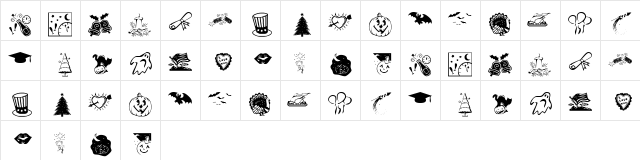
KR Pick A Holiday Regular
Design Context for KR Pick A Holiday Typeface
KR Pick A Holiday is a composed and adaptable typeface that performs quietly and consistently across a wide range of design contexts.